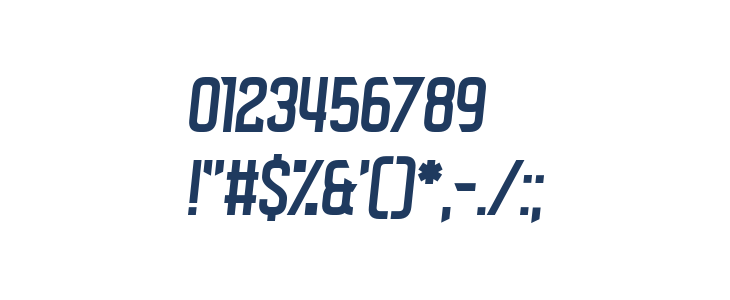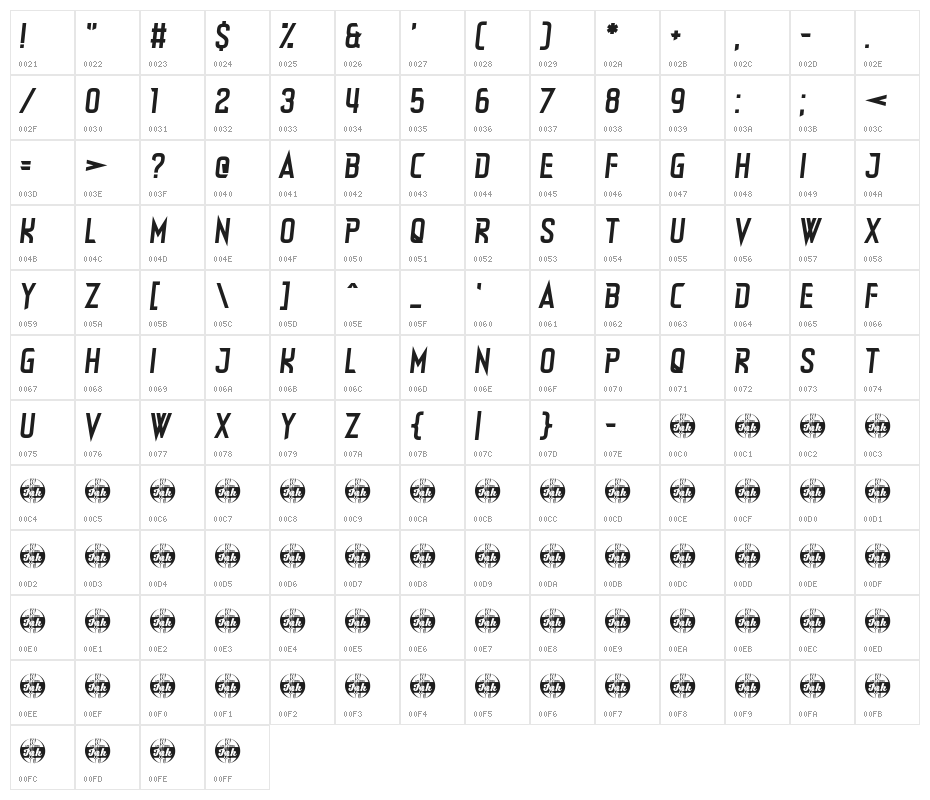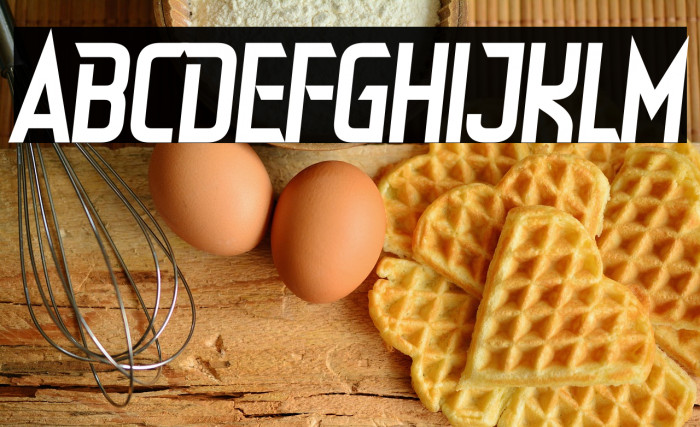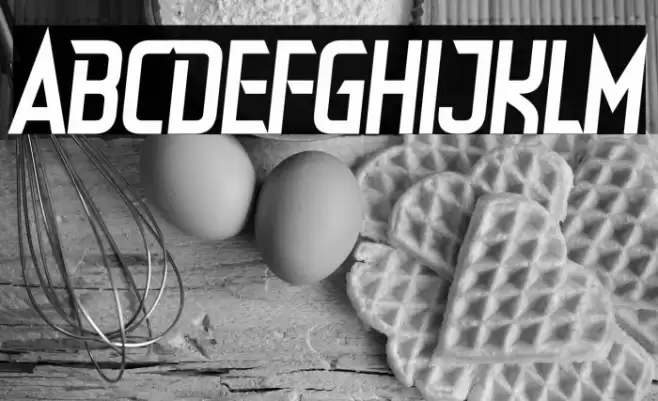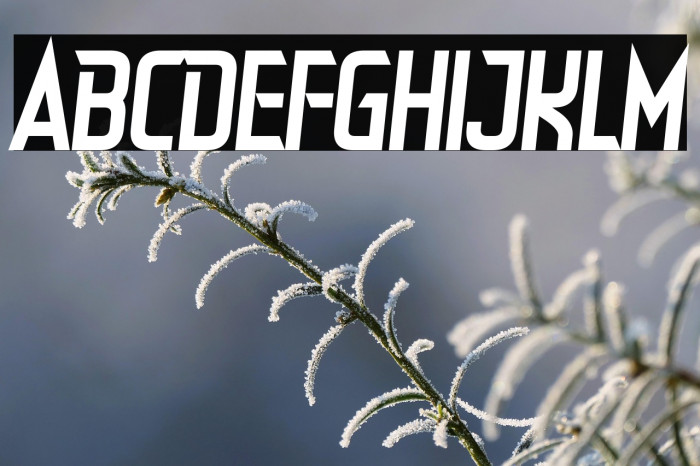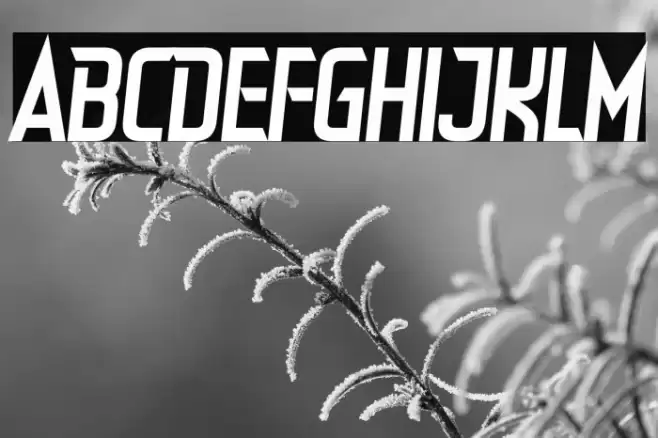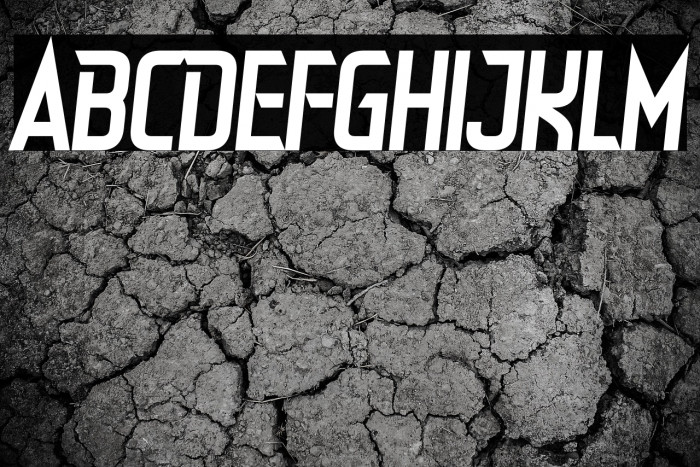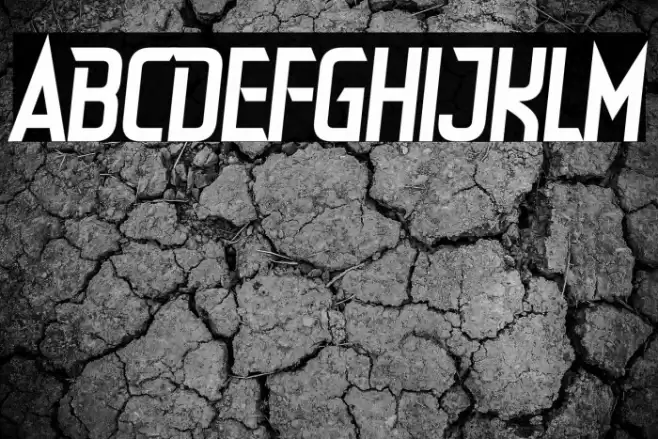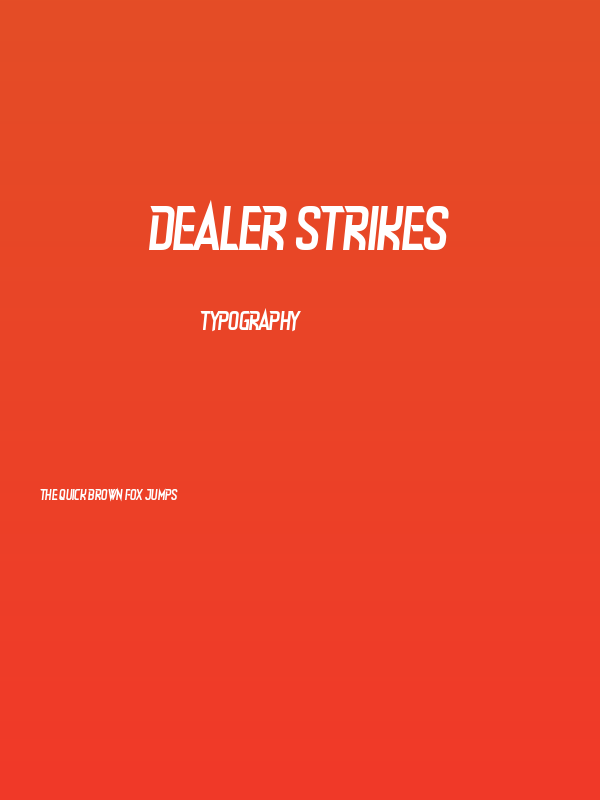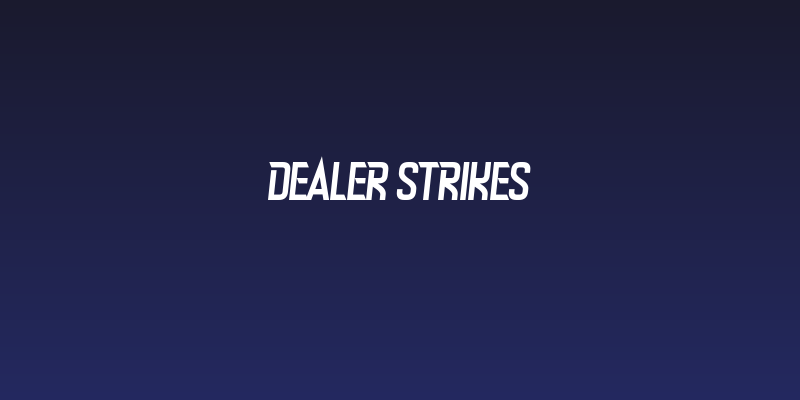
Dealer Strikes Font
Dealer Strikes Description
This font features a bold and dynamic design with a strong, angular structure. The characters are slightly condensed, giving it a compact appearance. The strokes are consistent in weight, providing a uniform look across all characters. The sharp edges and geometric shapes contribute to a modern and assertive style. The font includes both uppercase and lowercase letters, numerals, and a variety of special characters, making it versatile for different design needs. Its high contrast and clean lines make it suitable for attention-grabbing headlines and impactful logos.
| Proposed Projects | Ideal for sports branding, automotive designs, dynamic posters, and modern logos. |